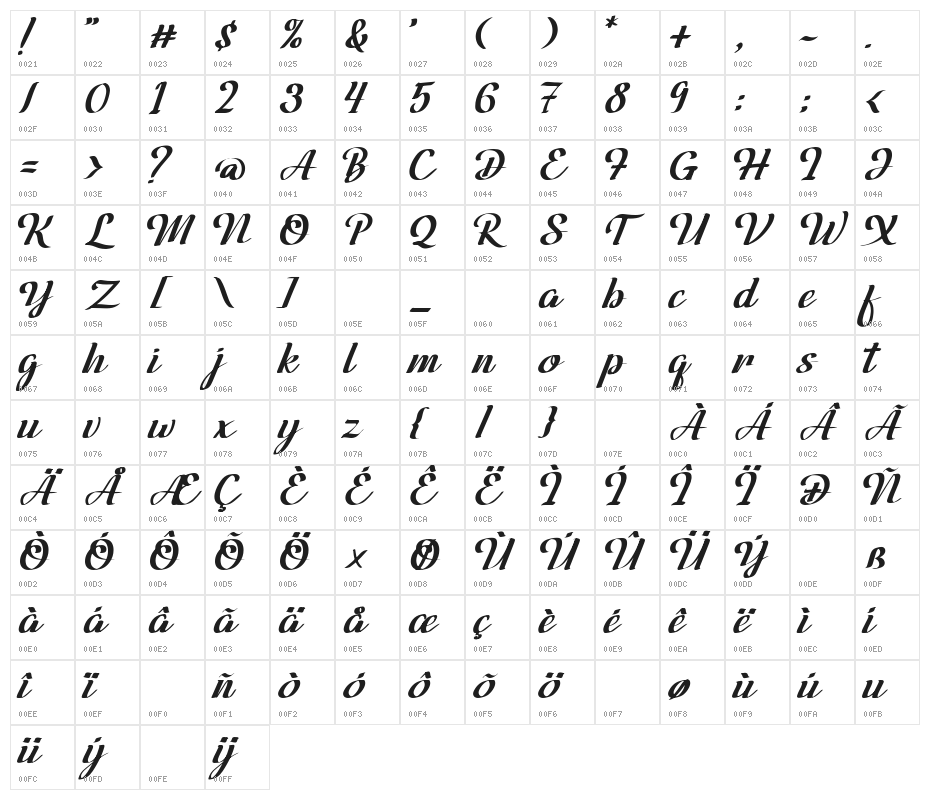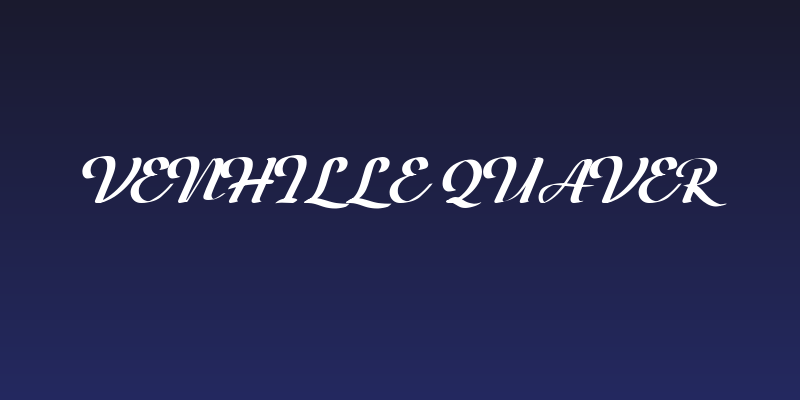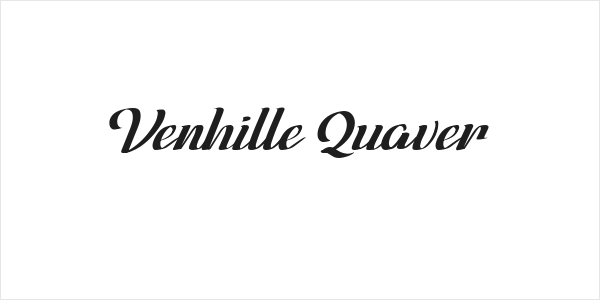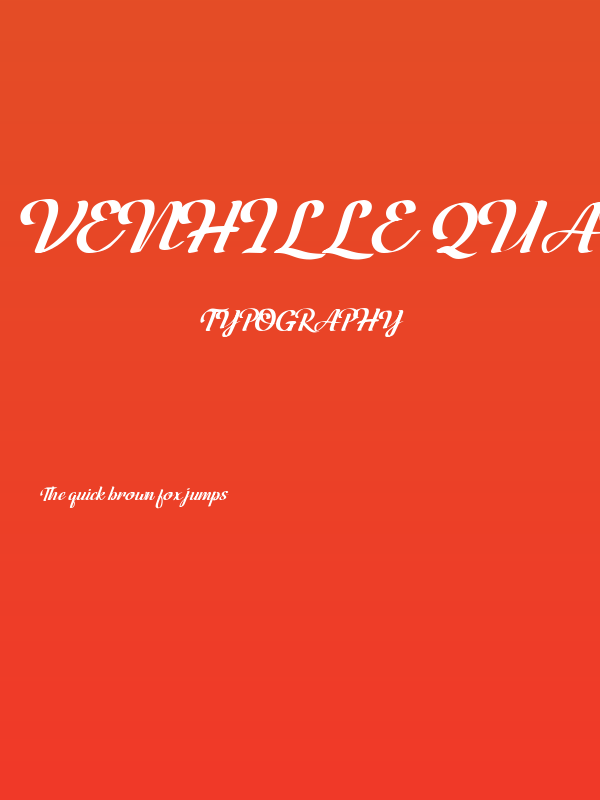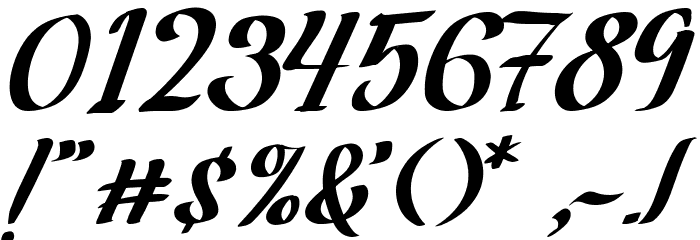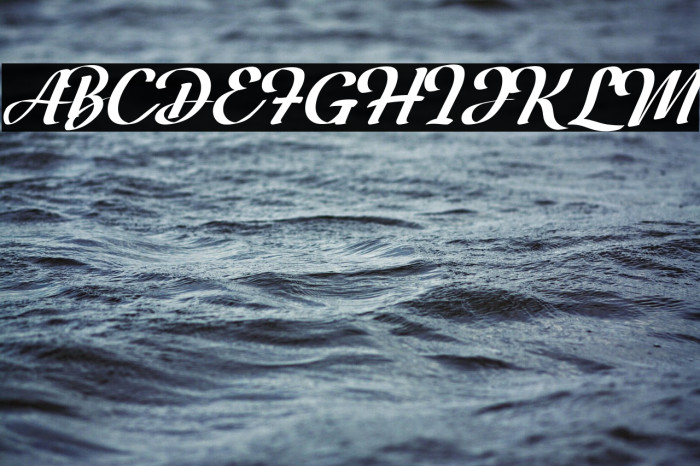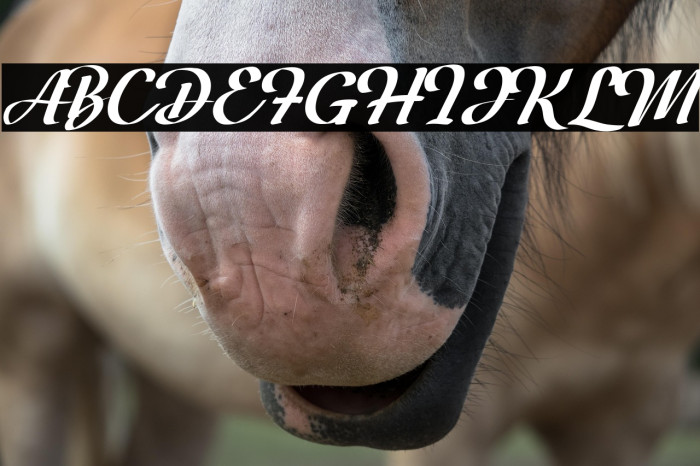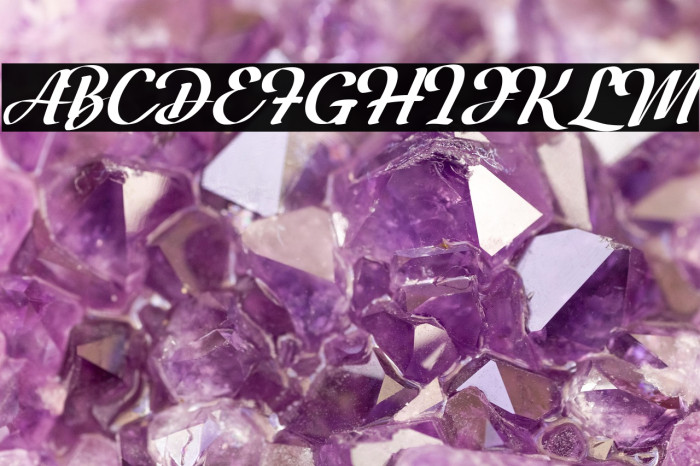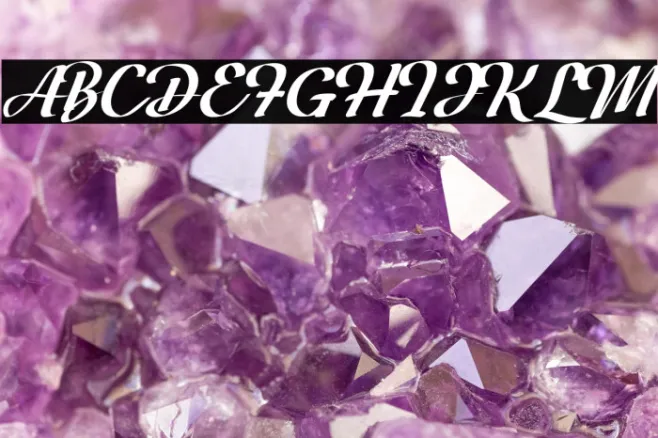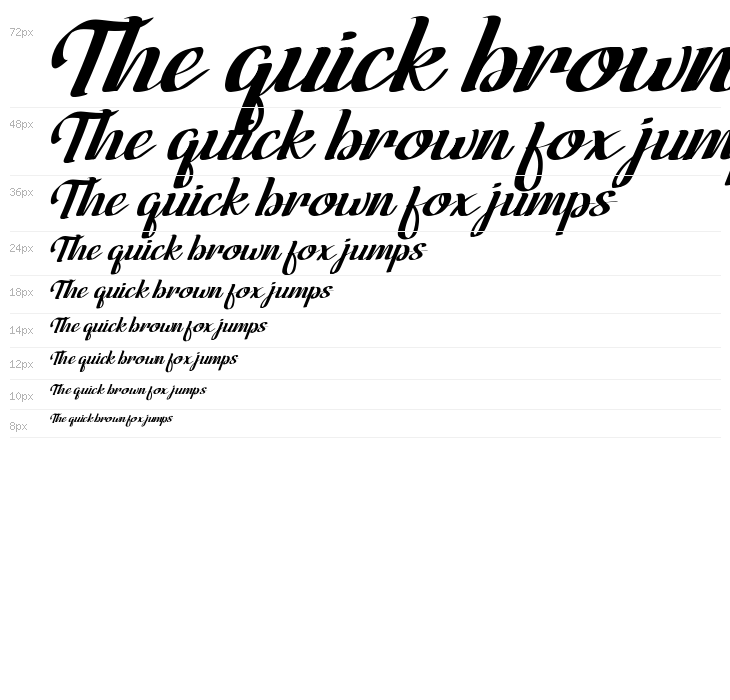
Venhille Quaver Font
Venhille Quaver Description
This font exhibits a dynamic and elegant script style, characterized by its flowing, cursive letterforms. The uppercase letters are bold and sweeping, with distinctive flourishes that add a sense of movement and sophistication. The lowercase letters maintain a consistent slant, enhancing the fluidity of the text. Numbers and special characters are designed to match the ornate style, ensuring a cohesive appearance across all elements. The font's overall aesthetic is both classic and decorative, making it suitable for projects that require a touch of elegance and flair.
| Proposed Projects | Ideal for wedding invitations, elegant branding, luxury product packaging, and decorative headlines. |